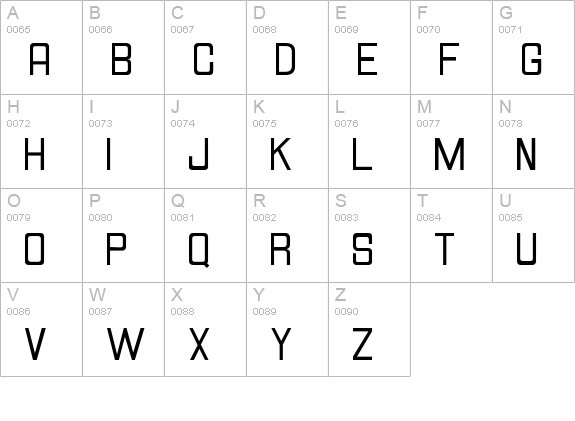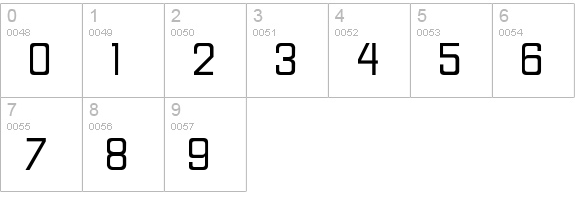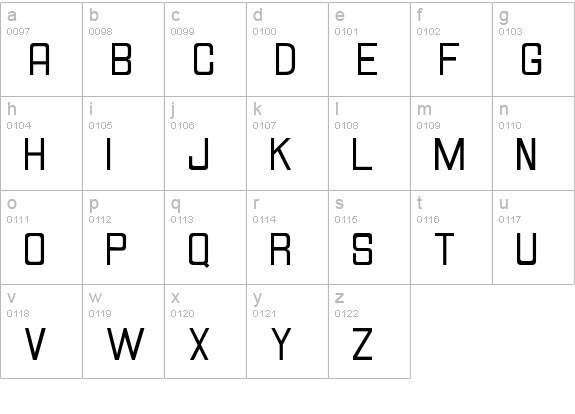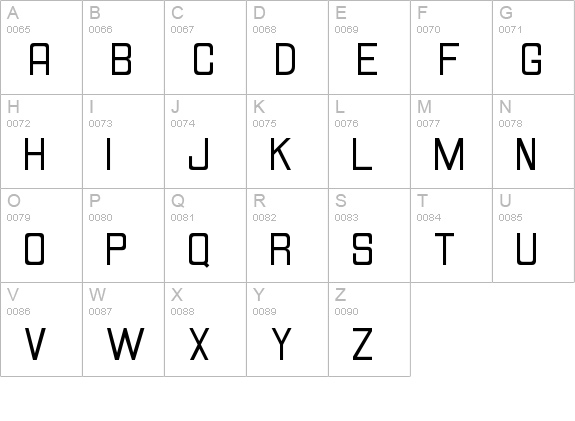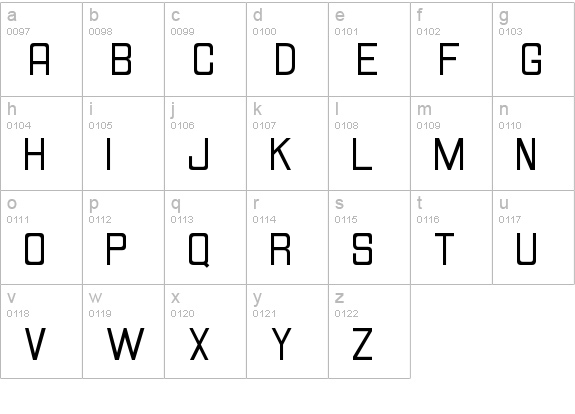
Hallandale Square JL is a stunning font that exudes elegance and sophistication. With its perfect balance of sharp edges and smooth curves, this typeface is a true embodiment of modern design. The unique square shape of the letterforms adds a touch of contemporary style, making it a perfect choice for a wide range of creative projects. This font is not only visually appealing but also extremely versatile. Whether you need it for branding, advertising, packaging, or any other creative endeavor, Hallandale Square JL is sure to make a lasting impression. Its clean and legible design ensures maximum readability, even at smaller sizes. One of the best things about Hallandale Square JL is that it is completely free. Yes, you read that right! This font is freely available to download at FontsMarket.com. This means that you can enhance your designs with this incredible font without having to spend a dime. It's a great opportunity to add a touch of sophistication to your projects without breaking the bank. What sets Hallandale Square JL apart from other fonts is its exceptional attention to detail. Every letter has been meticulously crafted to ensure a seamless flow and harmonious composition. The bold and confident design of this font instantly grabs attention and adds a sense of professionalism to any project. So why wait? Download Hallandale Square JL from FontsMarket.com today and start exploring the endless possibilities it offers. Whether you're a graphic designer, a creative professional, or simply someone who appreciates beautiful typography, this font is a must-have in your collection. Don't miss out on this amazing opportunity to elevate your designs with this freely available font.